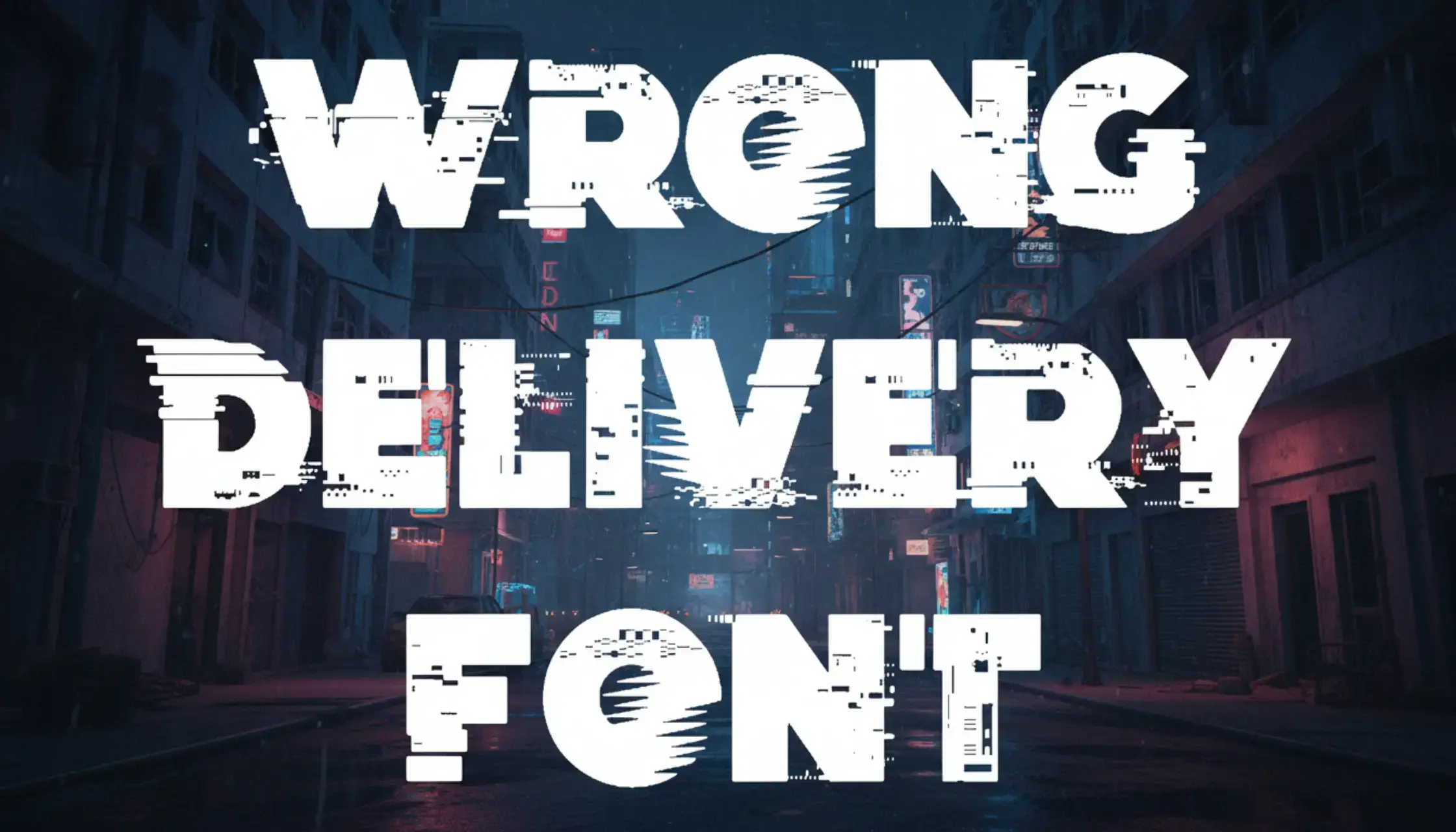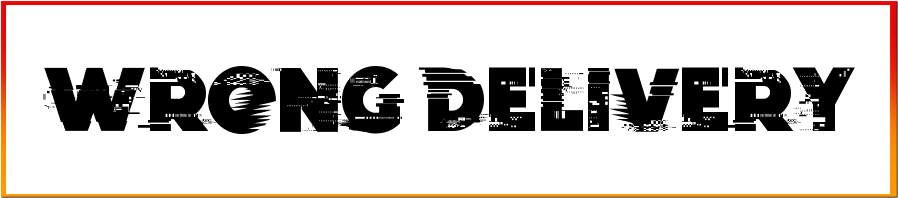
Wrong Delivery Font
Wrong Delivery is a fancy font designed by IMAGEX. Bold and full of character, it's built to stand out rather than blend in. You can download it for free and test it with your own words in the preview above.
- Characters: A–Z, 0–9 and basic punctuation
What You Can Type With Wrong Delivery
Wrong Delivery is an all-caps font: it only has capital letters. Lowercase letters will show up in a different font or as empty boxes, so turn on Caps Lock when you type. All ten numbers are included. Everyday marks like &, !, ? and @ are there too. There are no accented letters like é or ñ, so it's best kept to English text.
Where Wrong Delivery Works Best
Think of Wrong Delivery for posters, logos and eye-catching headlines. Use it for one standout word or headline and let simpler fonts handle the rest.
Does Wrong Delivery support accented letters?
No. Wrong Delivery has no accented letters such as é, ñ or ü, so it's best for English text.